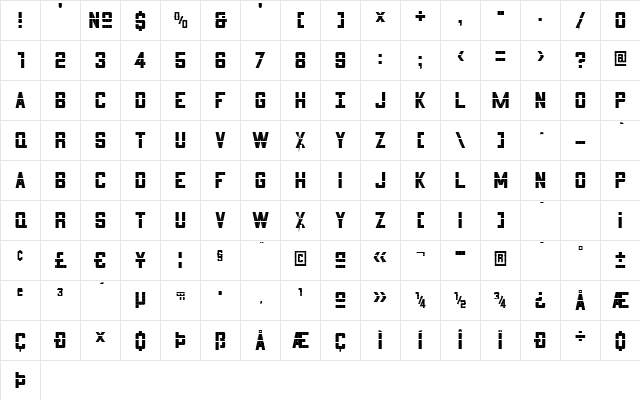
3x5 Regular Free Font
3x5 Regular
Design Context for 3x5
3x5 is a composed and adaptable typeface that performs quietly and consistently across a wide range of design contexts.